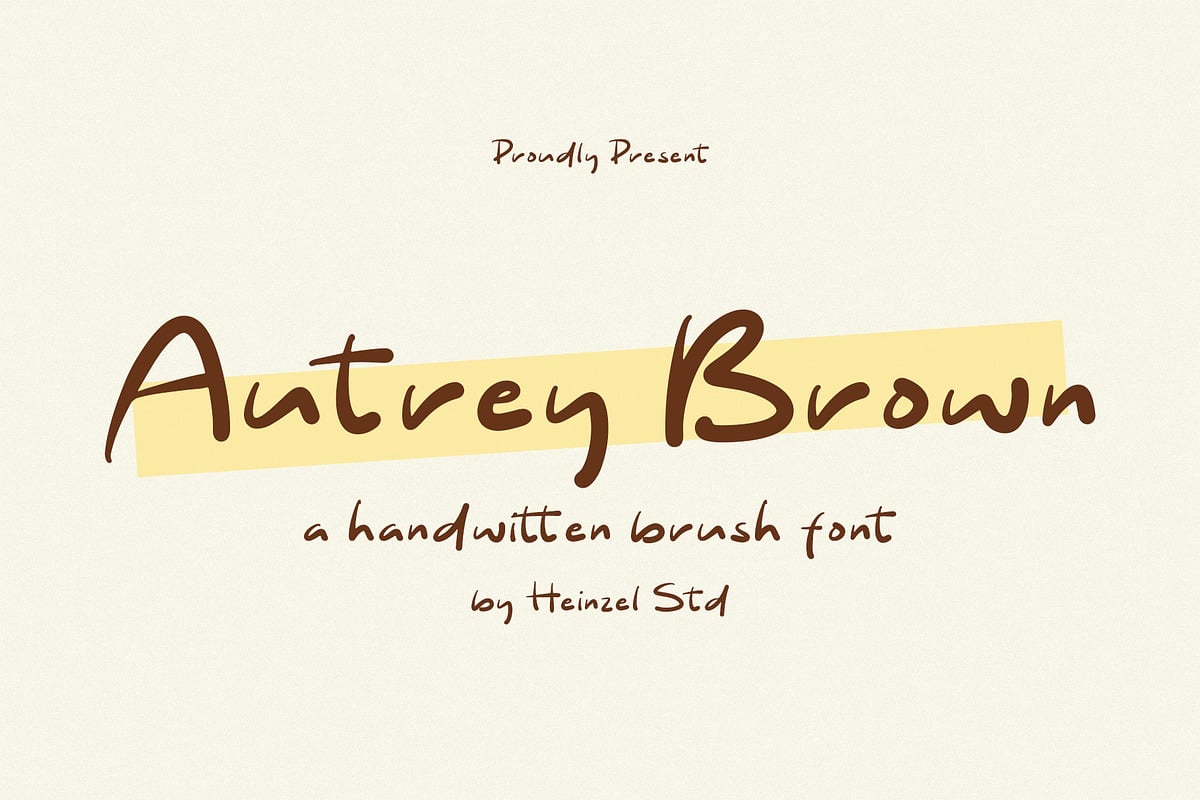
Autrey Brown Handwritten Brush Font
Give your designs an authentic, handcrafted signature with Autrey Brown — a fluid brush font built for creative expression.
Autrey Brown is a stylish handwritten brush typeface crafted to bring a natural, personal, and expressive feel to your projects. Its smooth strokes, organic letterforms, and effortless signature aesthetic deliver genuine personality while keeping a clean, modern edge.
This versatile font is ideal for:
- Logos and branding identities
- Social media graphics and lifestyle content
- Wedding invitations and stationery
- Inspirational quotes and editorial layouts
- Packaging and apparel design
- Photography watermarks and personal branding
Whether used in digital or print applications, Autrey Brown's fluid character makes it a go-to choice for brands and designers seeking a memorable, handcrafted typographic identity that feels authentic, elegant, and relaxed.